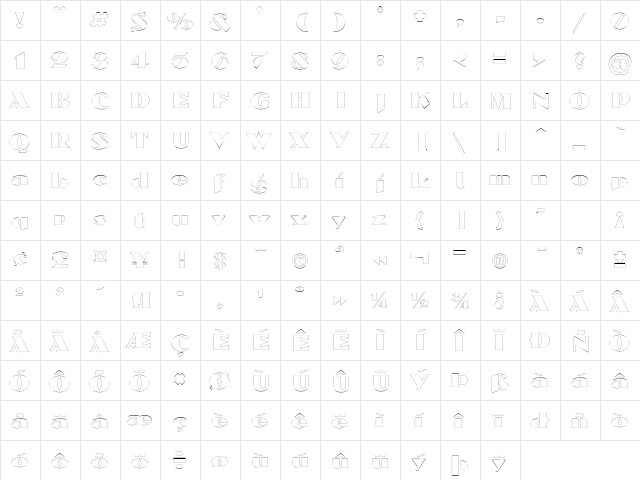
DomenicOutline Regular
Design Context for DomenicOutline Typeface
DomenicOutline brings ornamental detail and strong personality to headlines and identities, where visual impact matters more than quiet functionality.
Font Pairing: Pair with a clean neutral sans-serif for body copy to let DomenicOutline's character lead without overwhelming the composition.
Pro Tip: Use DomenicOutline exclusively at display sizes — it was designed to be seen, not read at length. Let a neutral companion handle body copy.